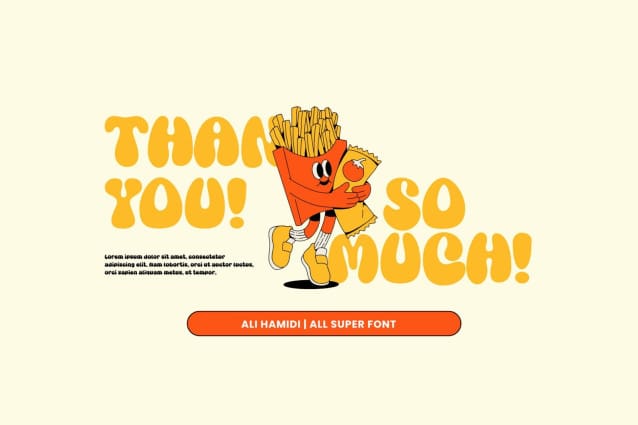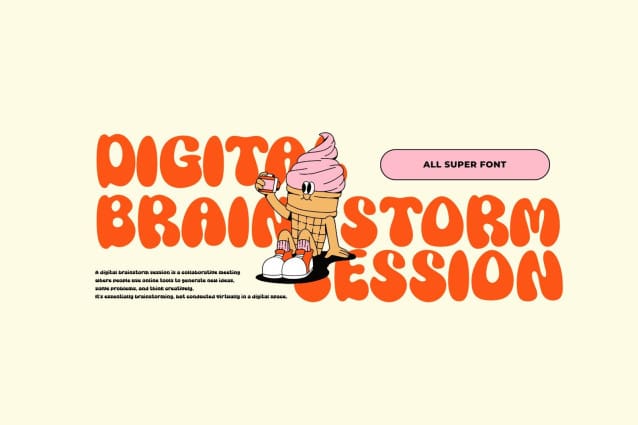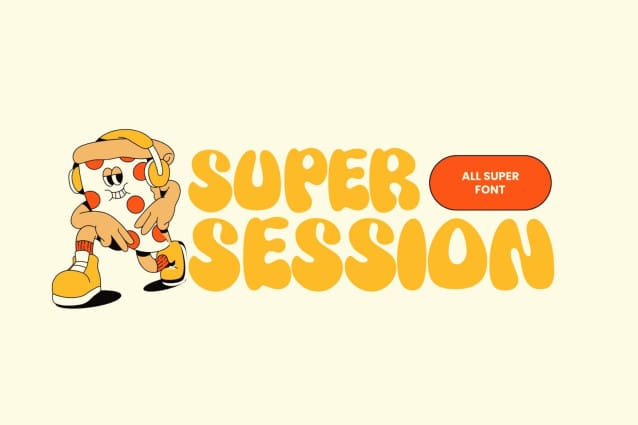
Super Session Font
Super Session Font is a font that explodes with personality, perfect for injecting a dose of groovy fun into your designs. This chunky, bold typeface is more than just letters – it’s a vibe.
Channel your inner 70s with Super Session’s retro vibes. Its thick strokes and playful curves evoke a sense of carefree cool, ideal for creating eye-catching headlines, posters, album covers, and branding that demands attention.